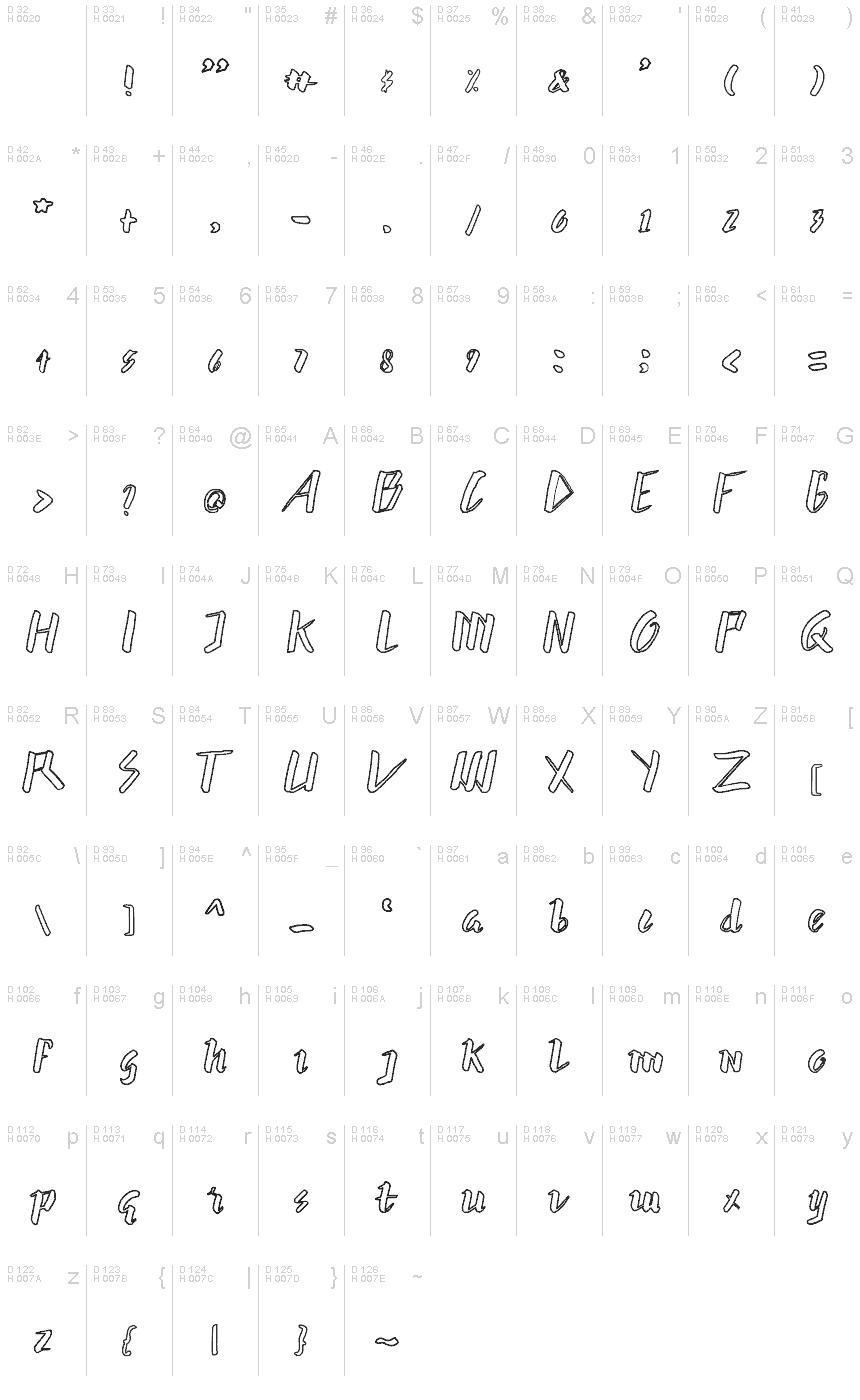
hummer outline
hummer is a brand new font product from Edric.co. Designed by Faizal Fernanda in 2017. This font is brush. It has regular and outline style.